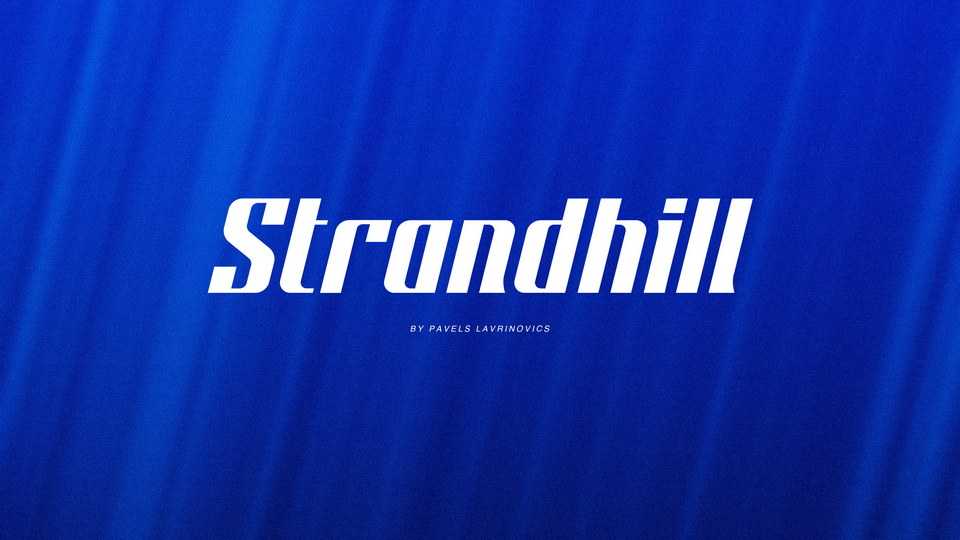
Download Strandhill font, a display typeface with slanted characters that aim to represent the movement of surfing and other sports. Strandhill’s structure and forms are inspired by blackletter.
Designer: Pavels Lavrinovics